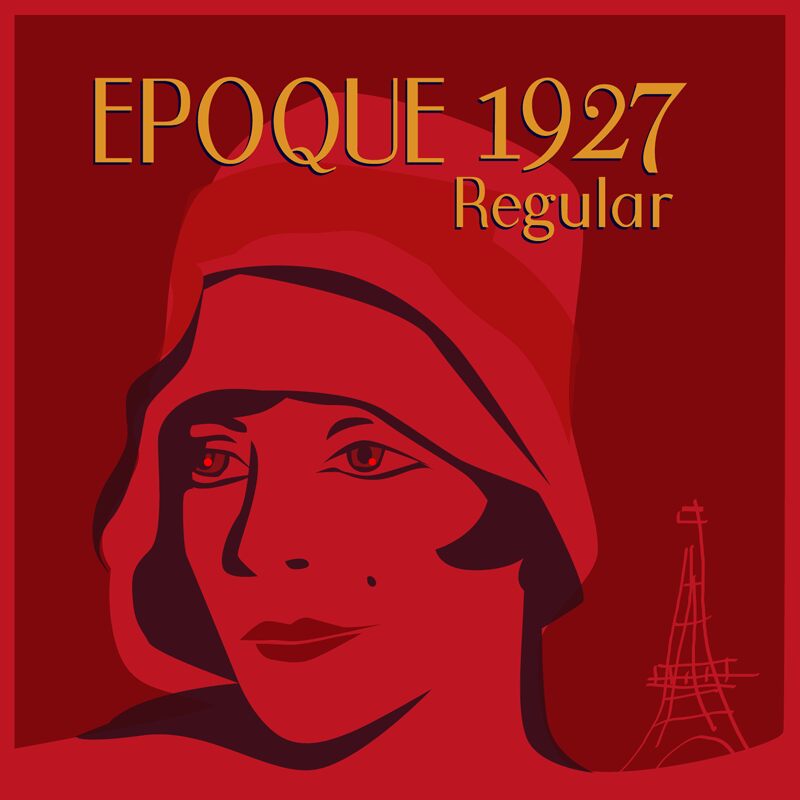
1927 Epoque font by Galdino Otten Fonts is a free font inspired by classic vintage typography and Art Deco influences. The extremely specialized font features a selection of well-crafted letters that serve a perfect sophisticated vintage feel when used in any project. Its combination of clear curvy and geometrical shapes achieves a refined look, proven perfect for recreating a classic aesthetic in the 21st century. A graceful font, 1927 Epoque has the potential to add the charm and elegance of the art period it is inspired by to your designs.
Use the font in apparel designs, posters, vintage promotional materials, advertisements, book covers, restaurant flyers & menus, album designs, social media visuals, or any content that can benefit from a classic timeless vibe. It is also timeless for front store designs and can be paired with a nice sans serif for a modern design twist.